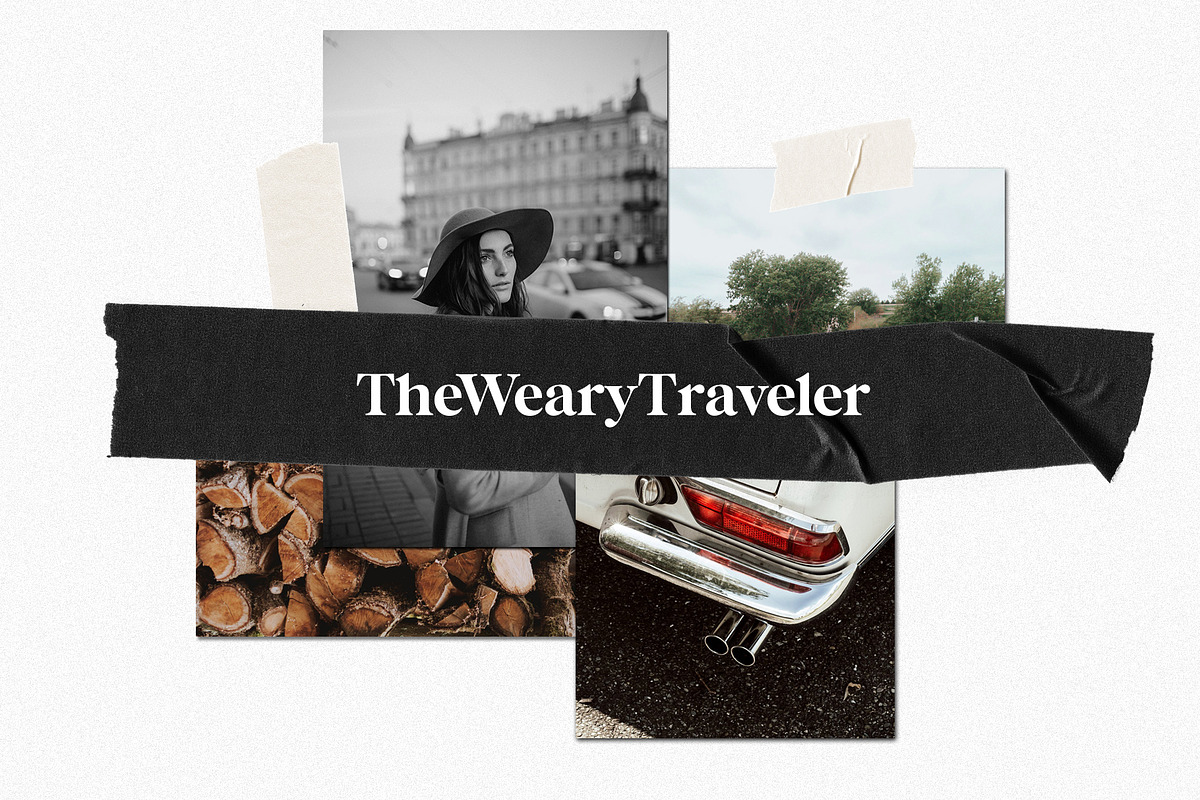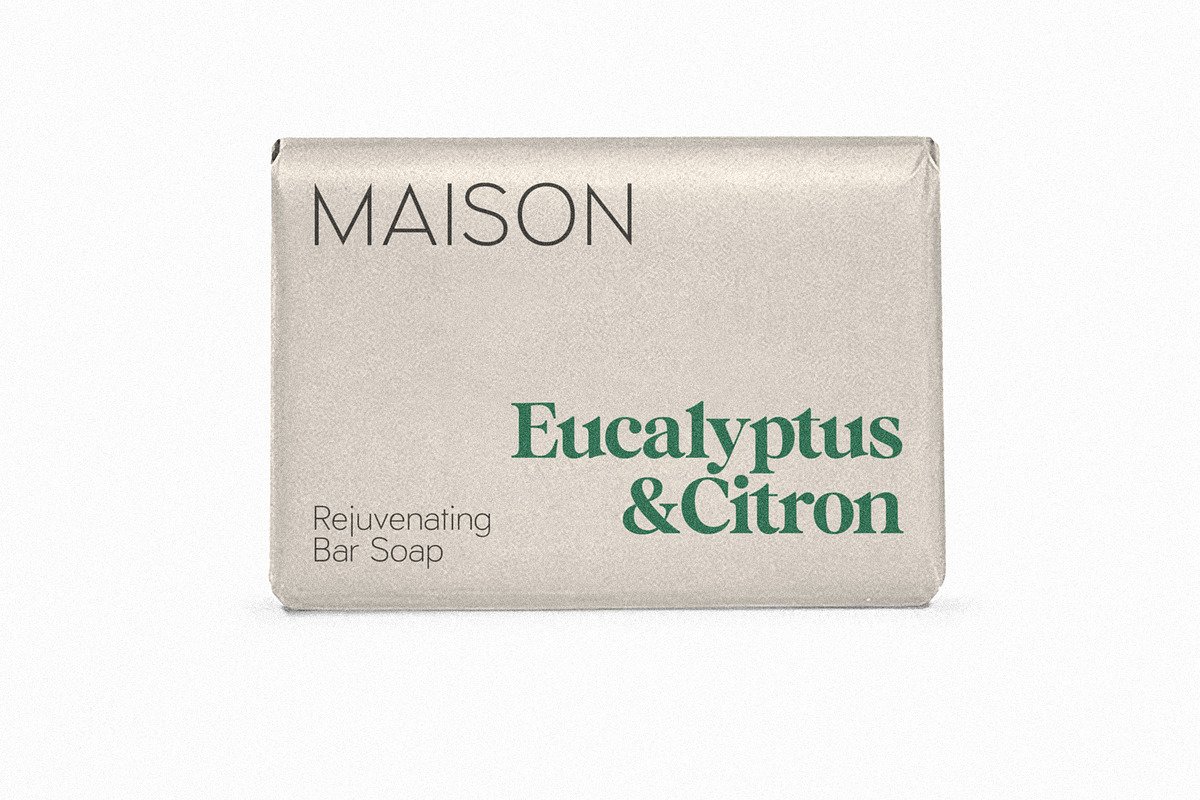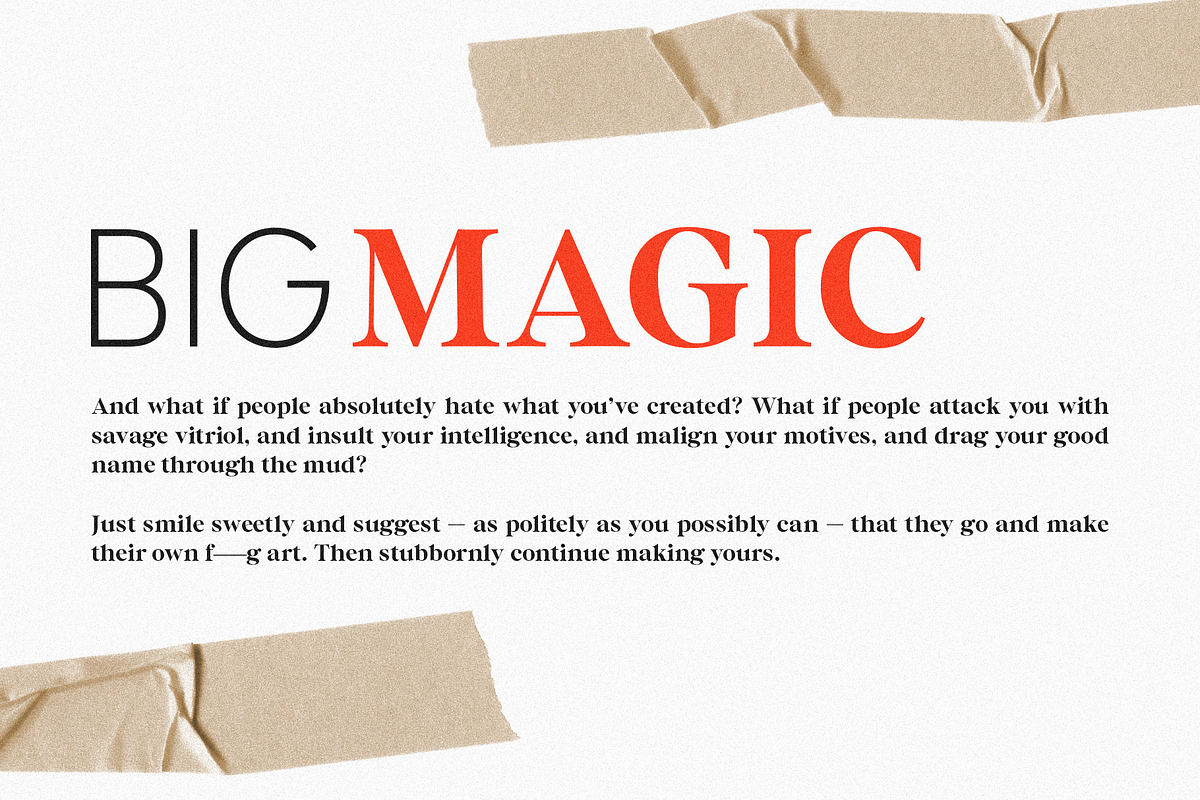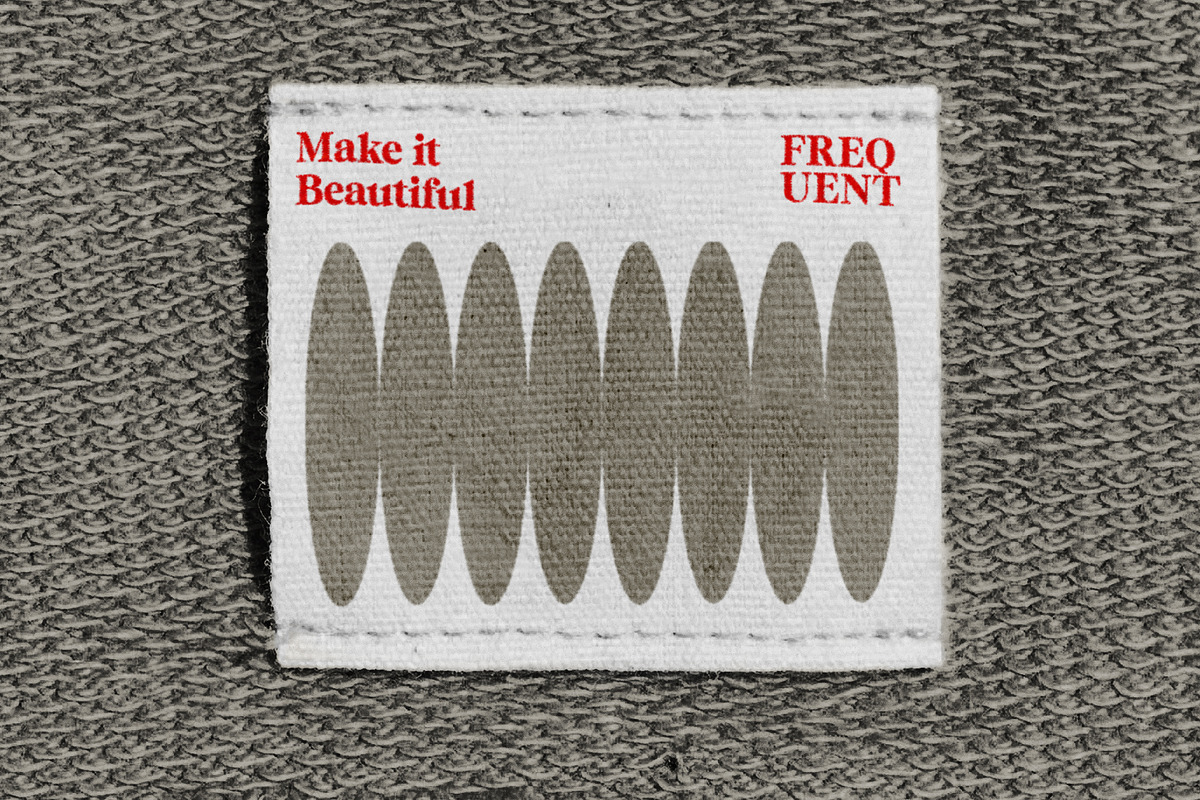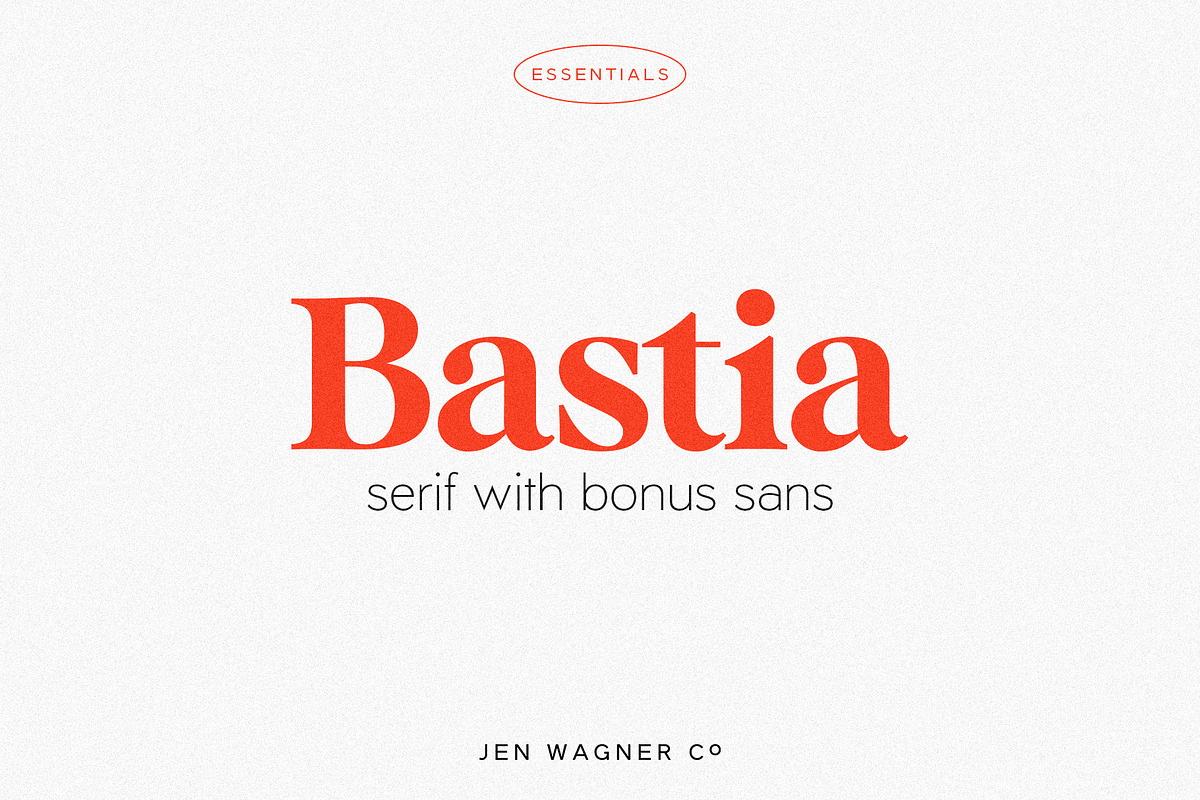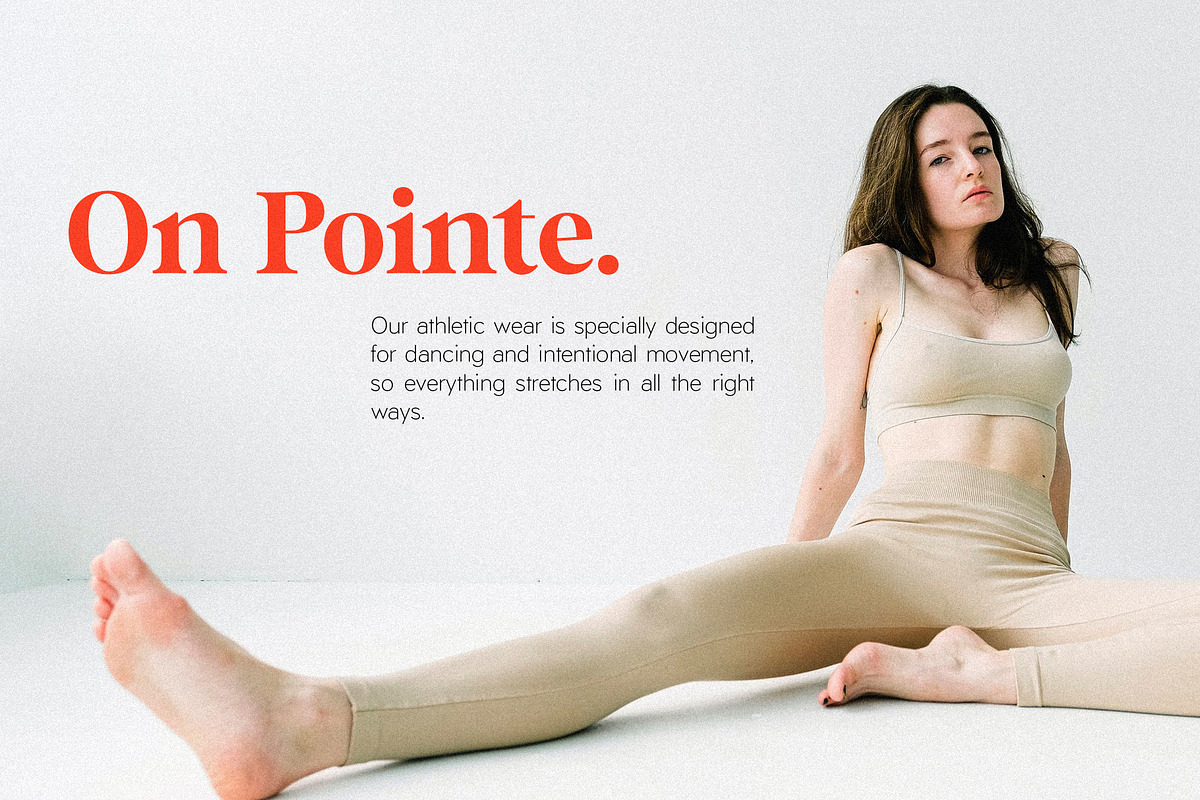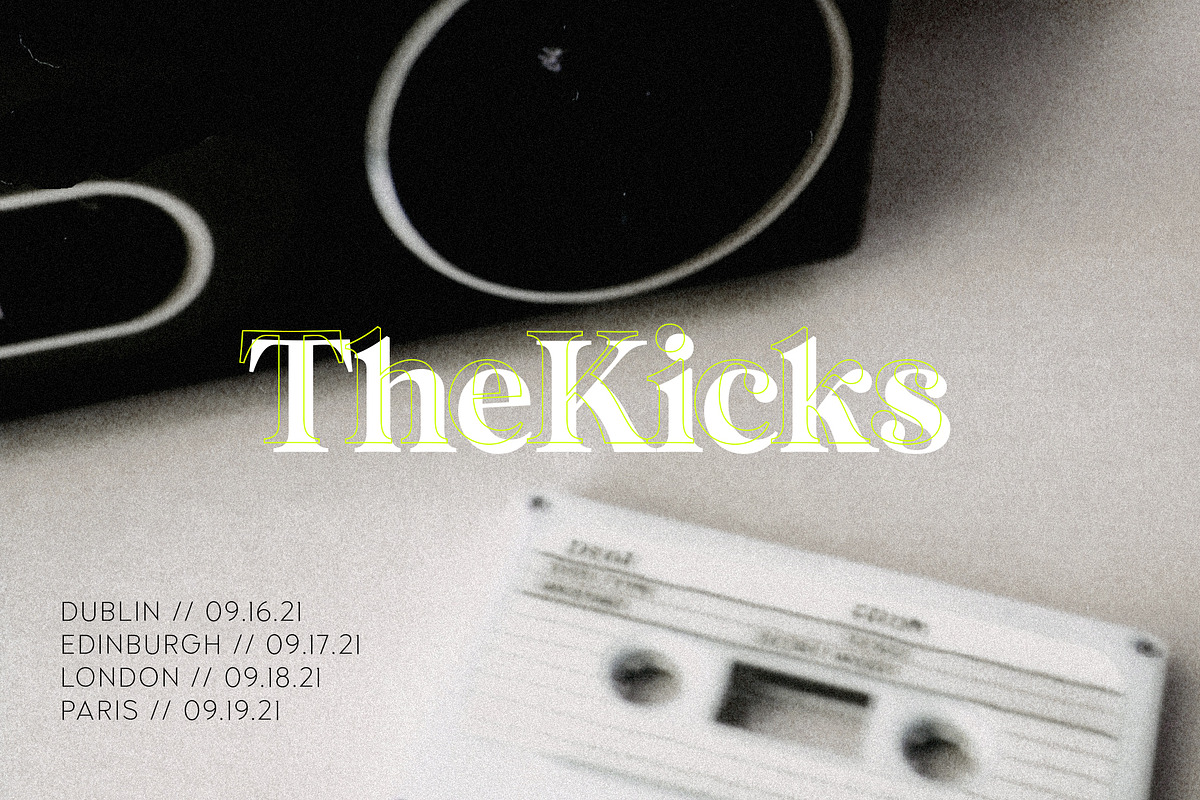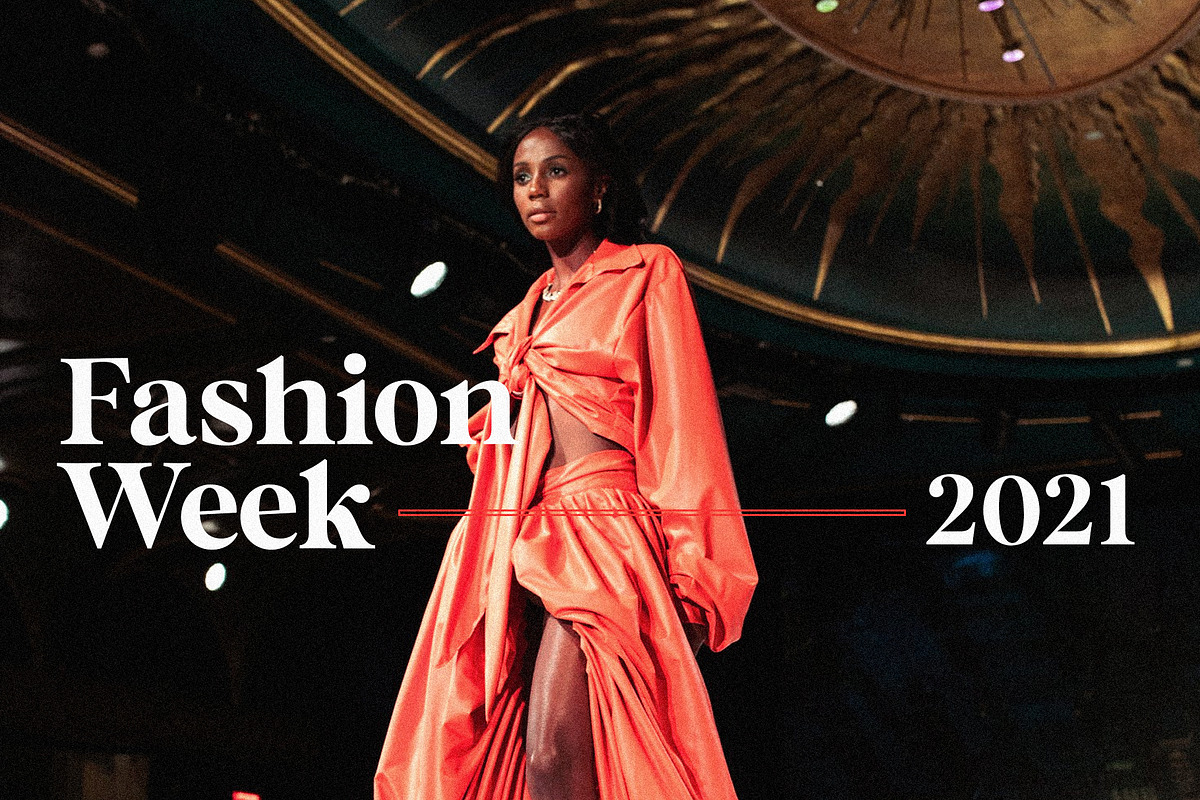
Bastia | A modern serif & bonus sans
Introducing Bastia – a brand new serif with a bonus sans for perfect pairing! I am constantly combining sans and serifs in my design work, and wanted to create the perfect combo for you too!
Bastia is a classy, bold upper and lowercase typeface that looks incredible in both large and small settings. Best used as a display for headings and logos, Bastia's clean lines and smooth curves give any project an extra touch of class.
See how it looks when used for body text in the 12th sample image above. I also love combining Bastia and Halifax for minimal logos (see the "Lucky Finch" sample logo - all the heart eyes!).
This download also includes a special outline version of the serif, so you can layer text or add some flair to your logos and display type.
You'll also get Halifax Regular sans as a bonus – this has been my favorite font to pair with Bastia throughout its development, and I wanted you to have access to such a pretty pair! I recommend using Halifax as body text for websites and documents, and using Bastia for headings, logos, and other bigger design elements :)
One thing to note about Bastia is the letter spacing. It was intentionally spaced for clean reading if you wanted to use it for body type, so I recommend setting the spacing a little tighter for display use (around -10 to -20 should do!).